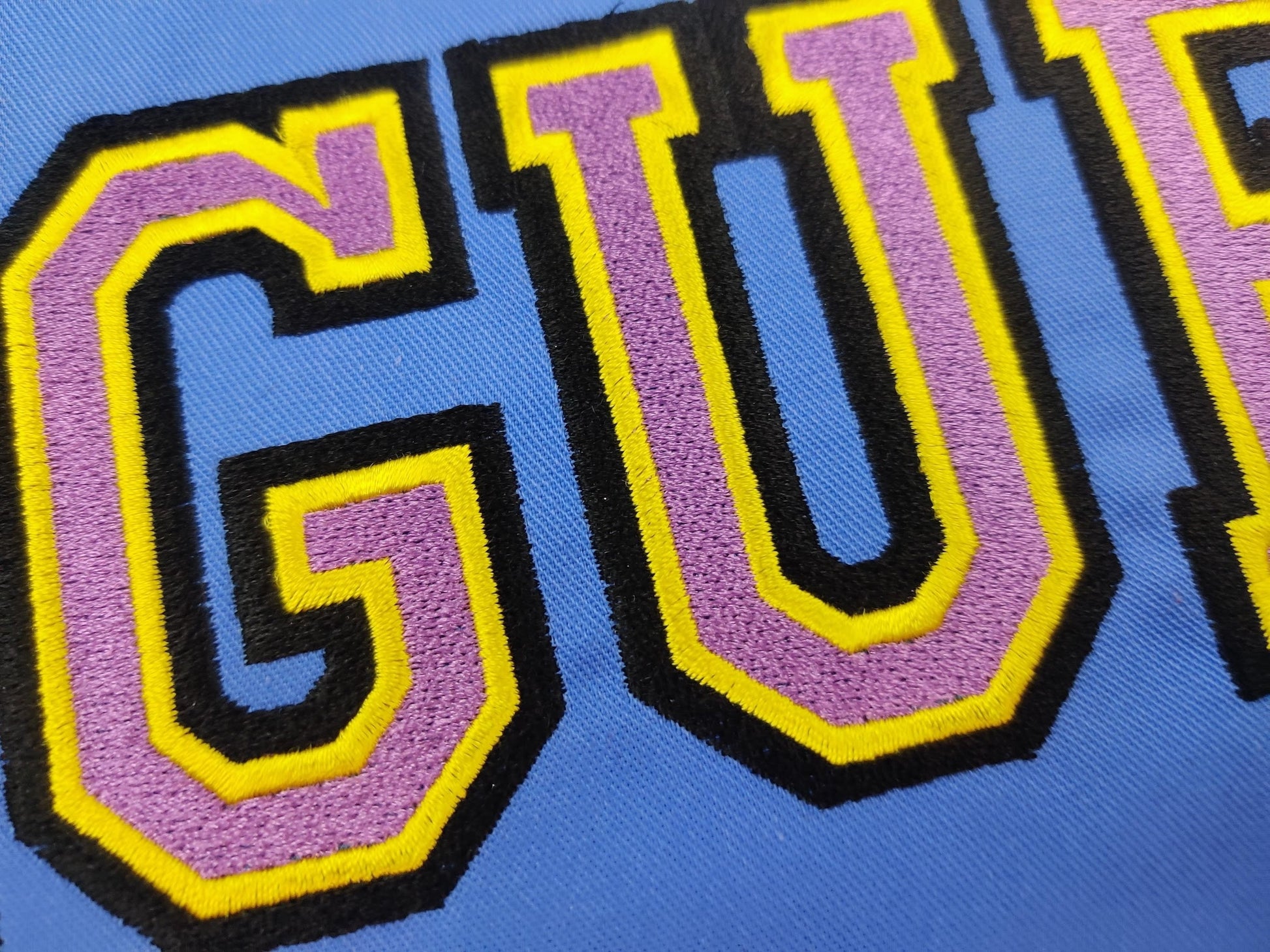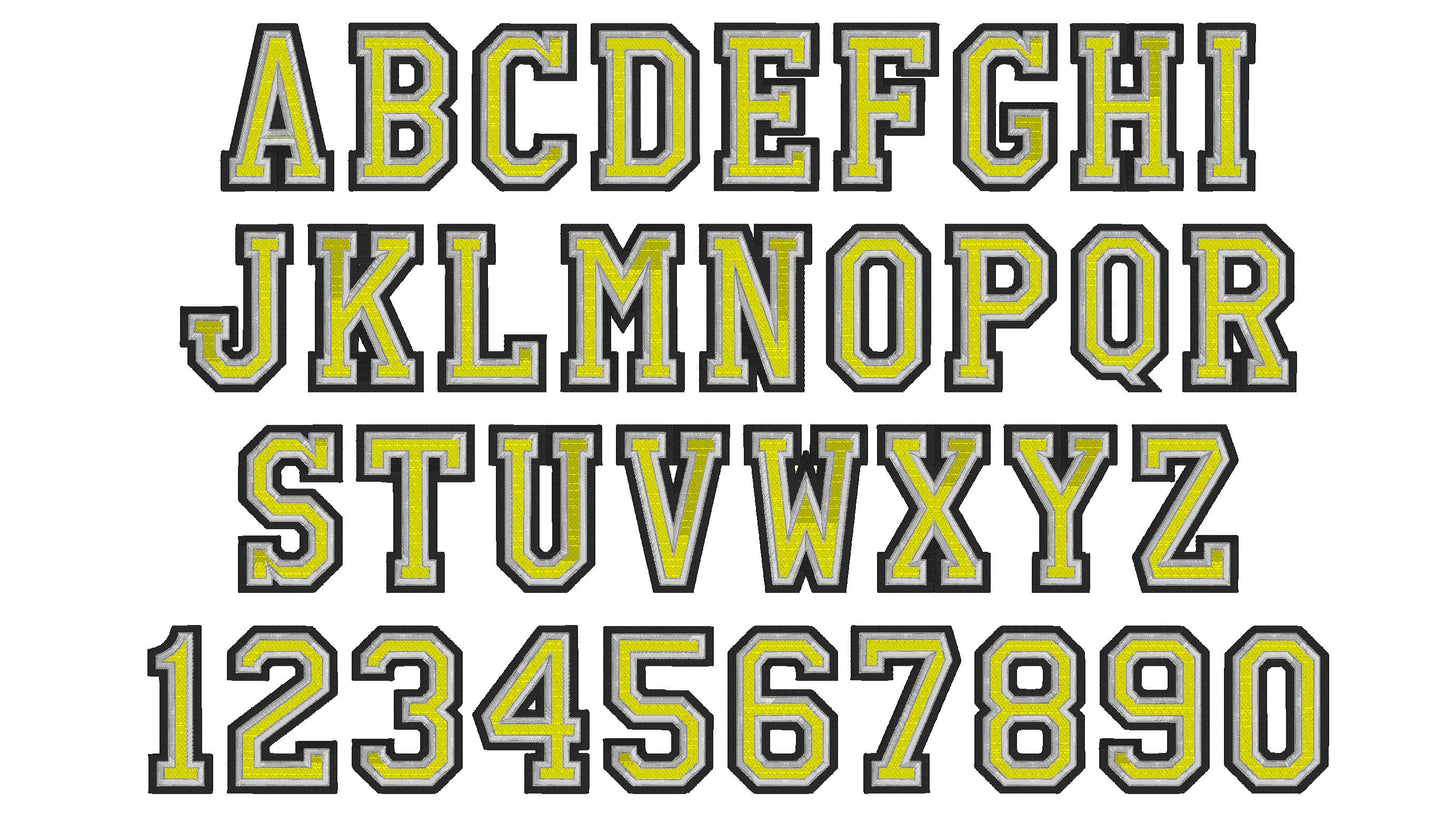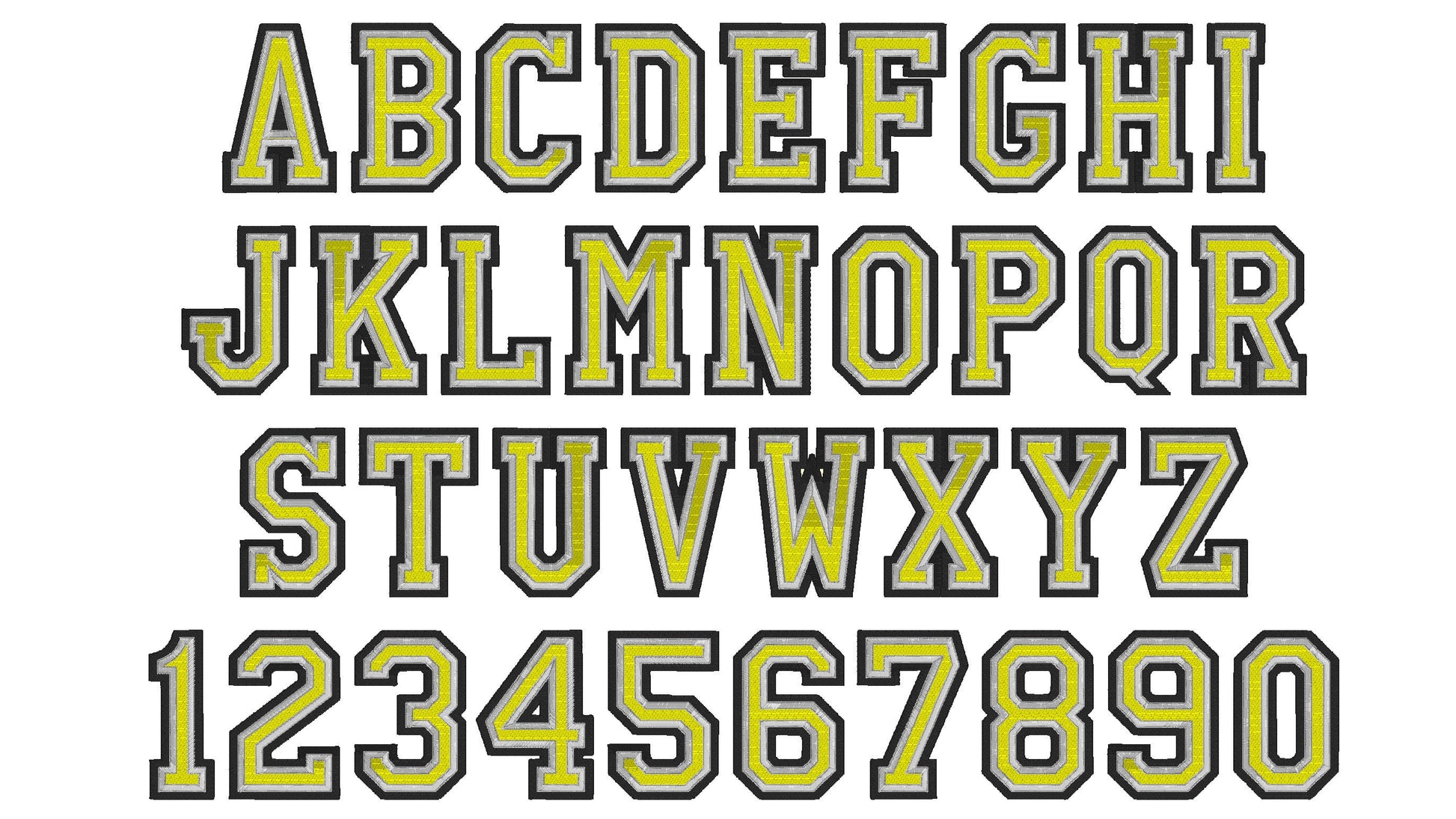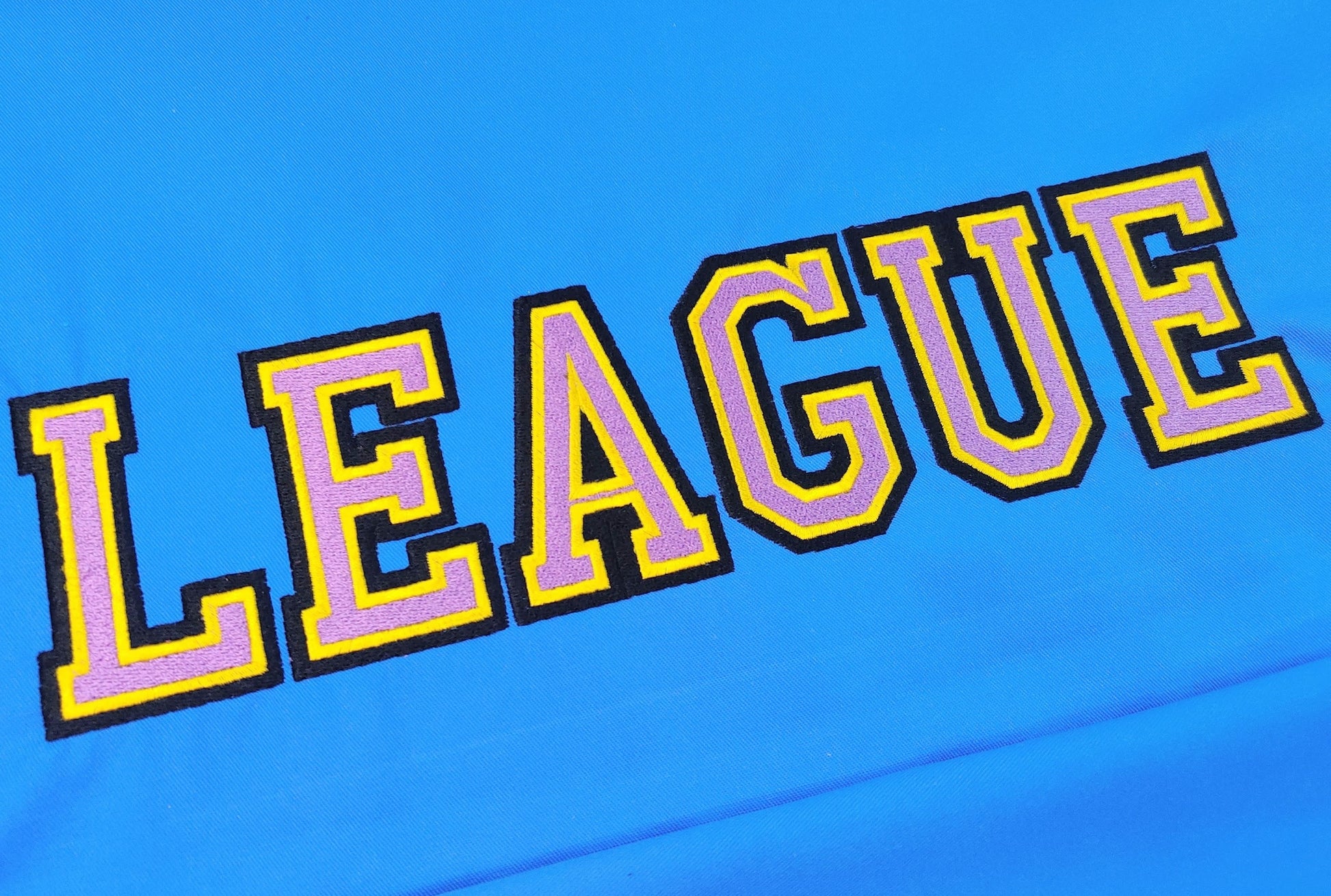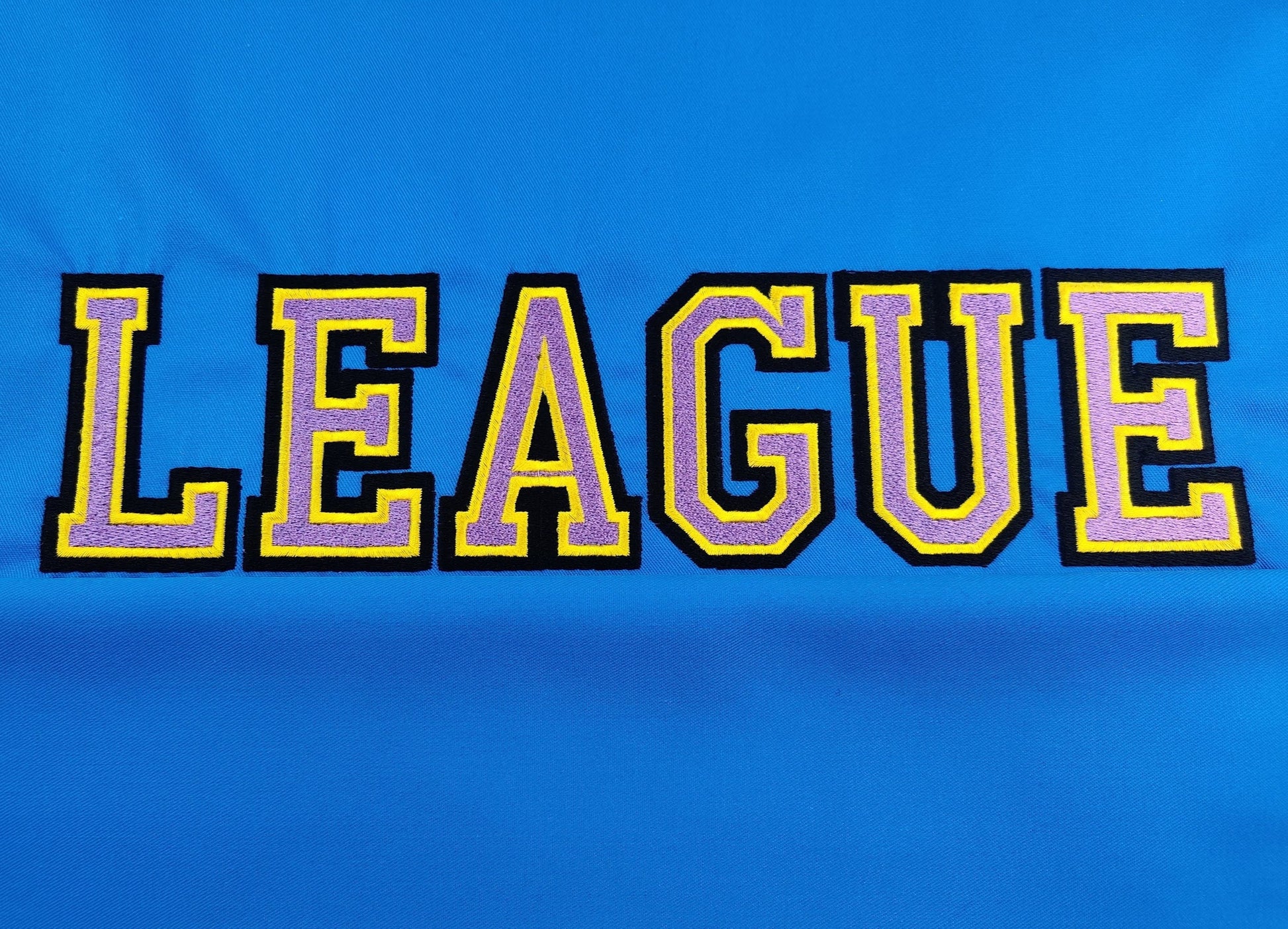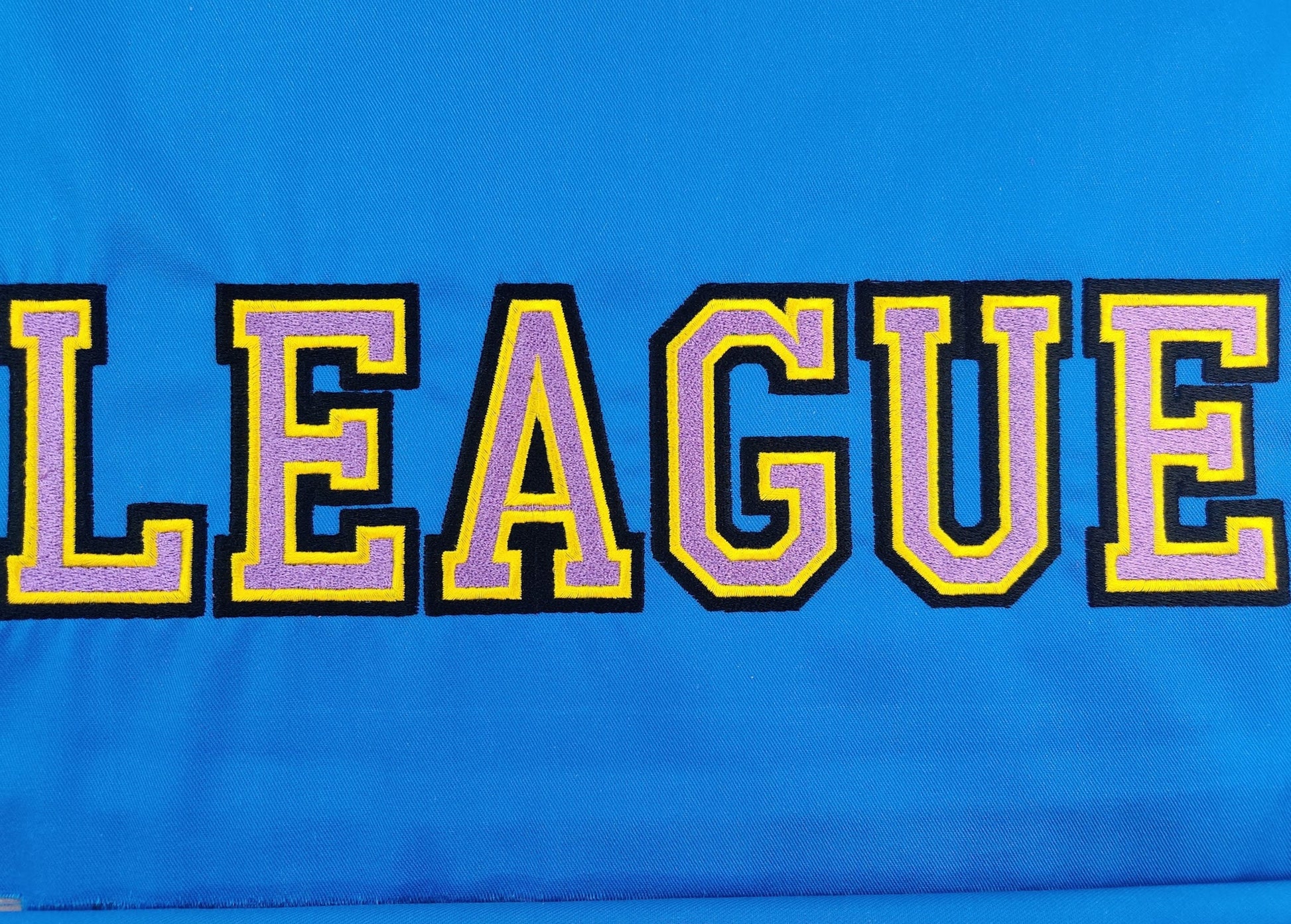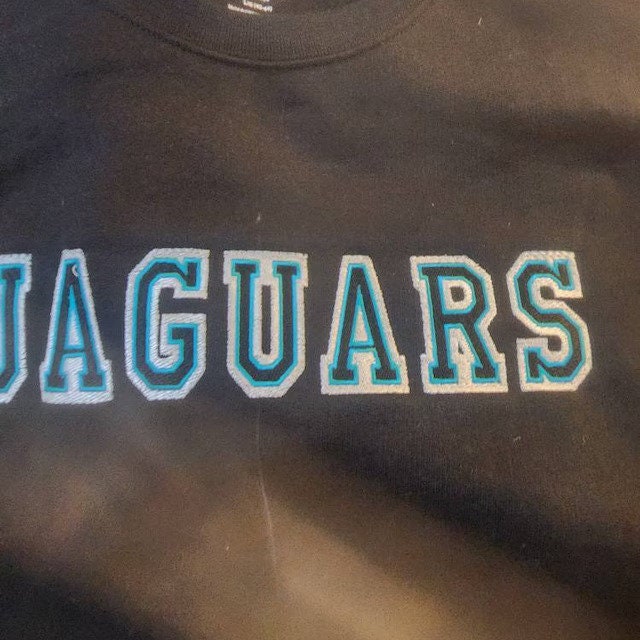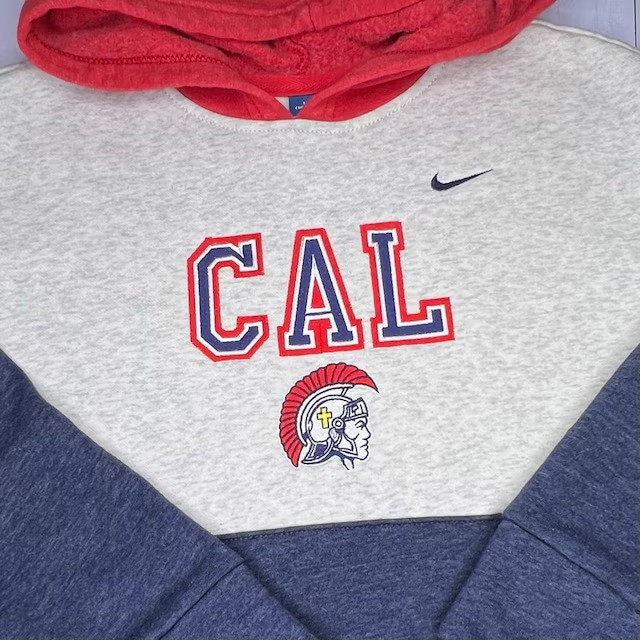
Three Colors Fill Stitch Athletic Font
An athletic varsity block font in three colors: a fill and two contrast outlines. Made for team shirts, jerseys, jackets and bags.
The letters come in four sizes: 2, 3, 3.5 and 4 inches. Fill stitch letters with two contrasting outlines. Includes uppercase letters A to Z, numbers 0 to 9 and an ampersand.
• 3-color athletic varsity block font
downloaded great. so glad it also came with a BXX font. stitched out great
All alphabets same size so no guessing on ling up fonts.
Great design & perfect stitch out!
Wonderful font! Stitches out beautifully!
Flawless stitched out. Love the design
Very nice work. I love it. Goes out very well.
Stitched out beautifully! Would loved to have the file include one more size smaller, but made it work.
Fonts stitch out perfectly. I love how it turned out.
I had a letter not stitch out correct. I tried backing it up and everything but it's like it was in the design.
This looks amazing and can use school colors
Does not stitch as indicated.
3" Stitches out very nicely. No gaps. Love it!
Stitches out well...looks great...just what I wanted.
stitches fine, 2nd outline is way larger than appears in the description and picture. Contacted to see if I could purchase another version or if line could be adjusted and never heard anything back to resolve.